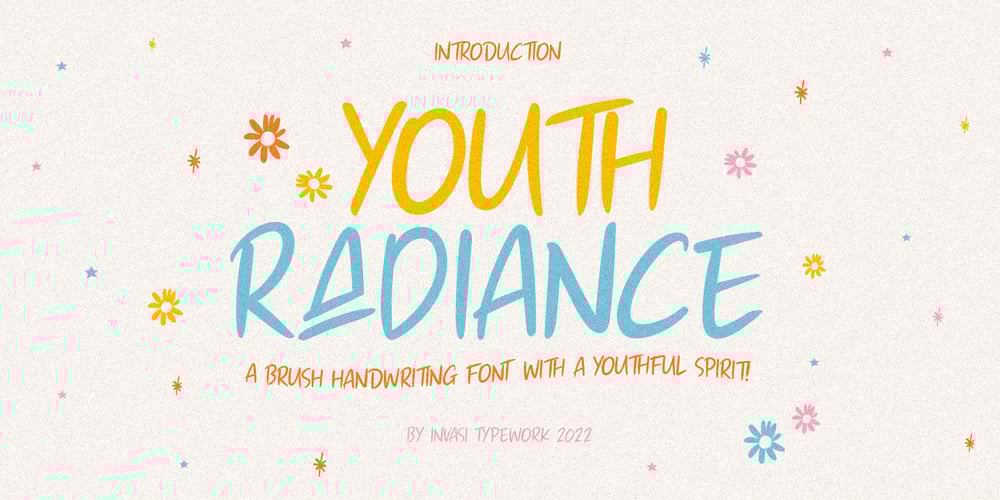
Youthful Radiance
Youthful Radiance font
Youthful Radiance Font Family was designed by Gha Arizal and published by Invasi Studio. Youthful Radiance contains 1 styles and family package options. Young and vibrant with a brush handwriting style, Youthful Radiance font brings youth spirit to life. Youthful Radiance is perfect for casual types on greeting cards, illustrations, quotes, quaint branding, book covers, children’s books, packaging, and more.Features: Total 221 Glyph Uppercase Numerals & Punctuation Alternates and Ligatures Multilanguage Supports 60+ Latin based languages